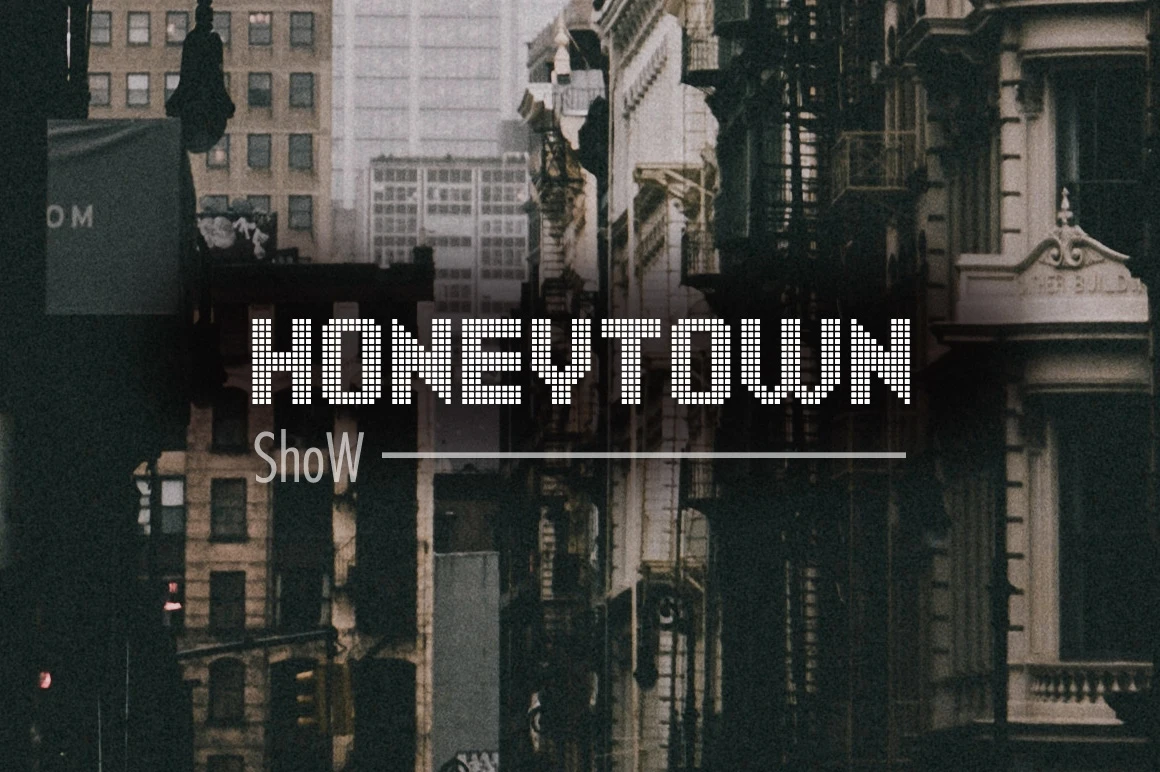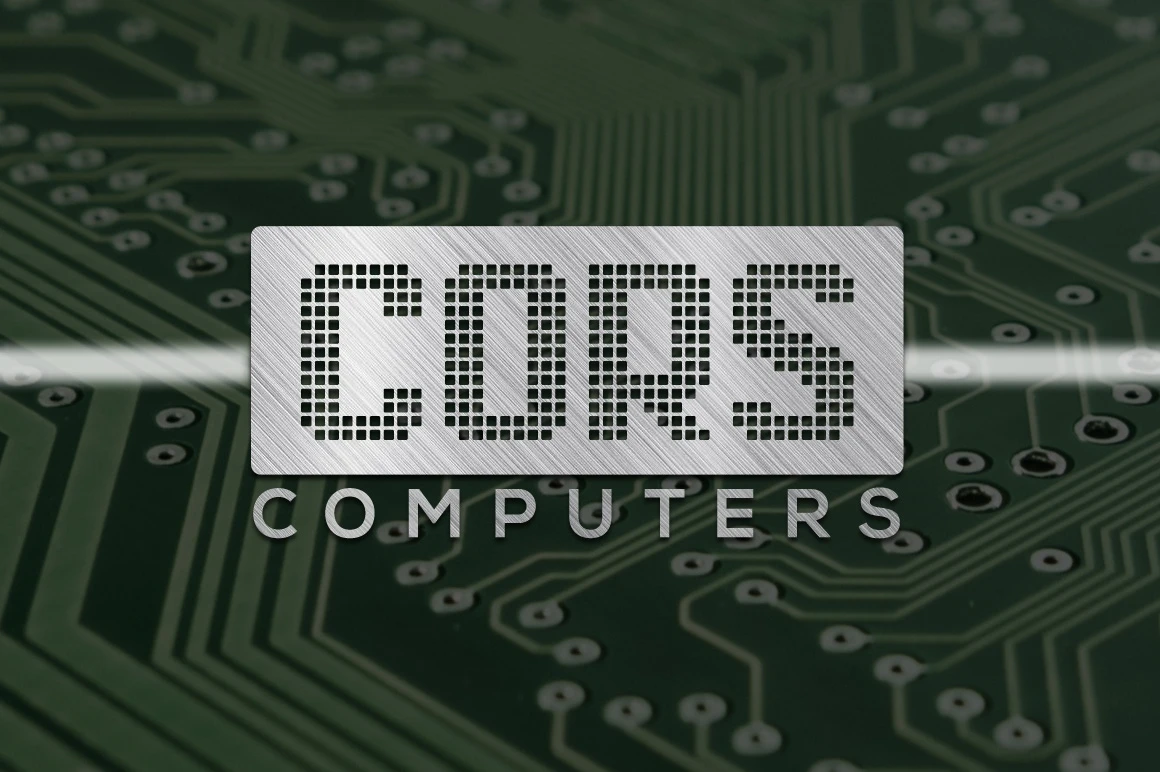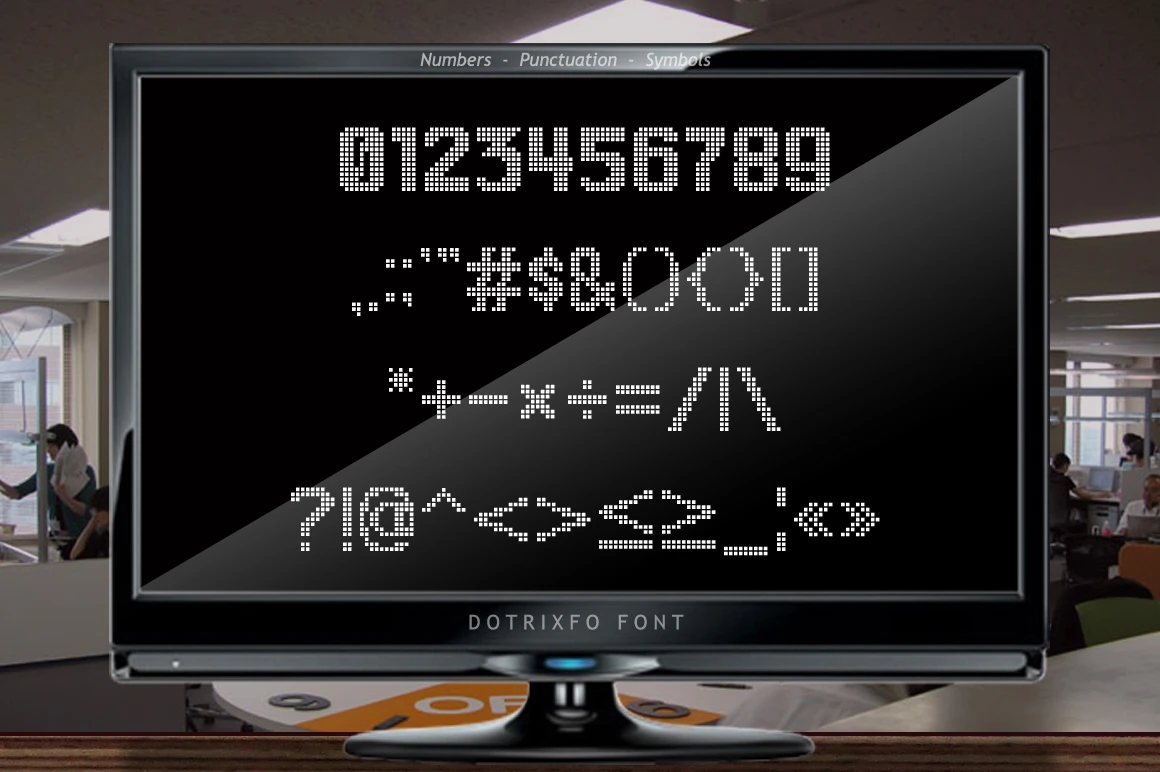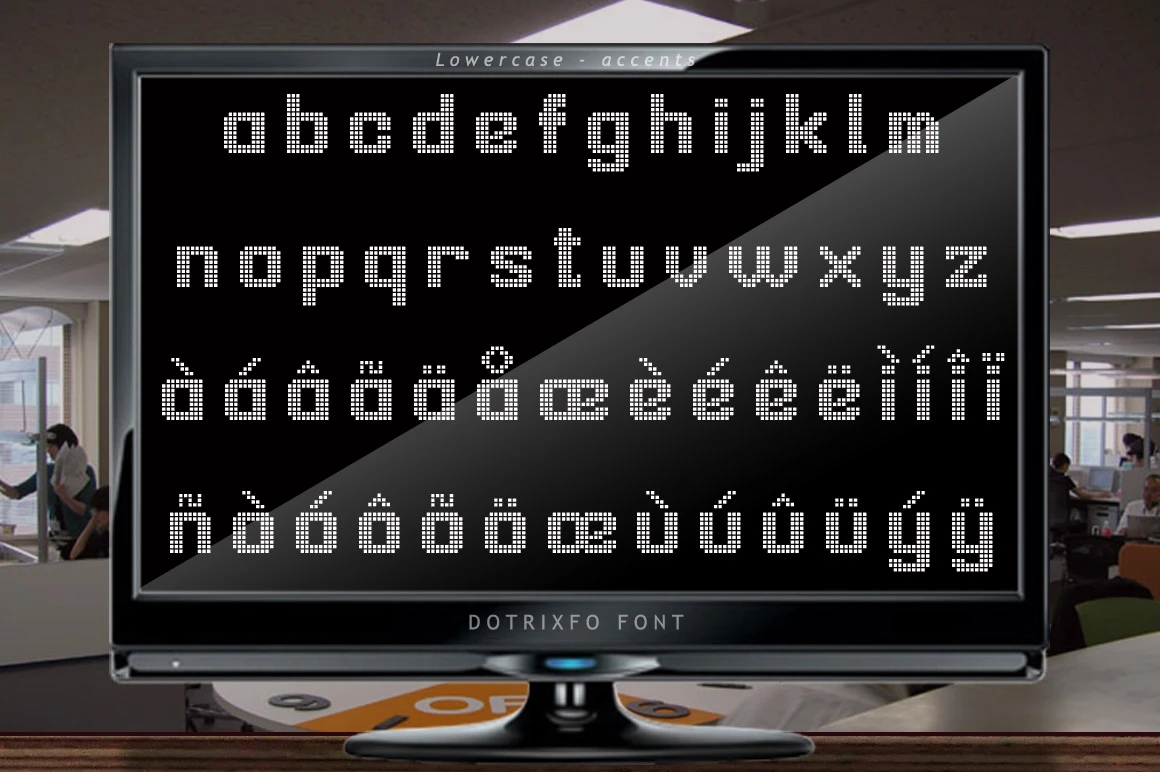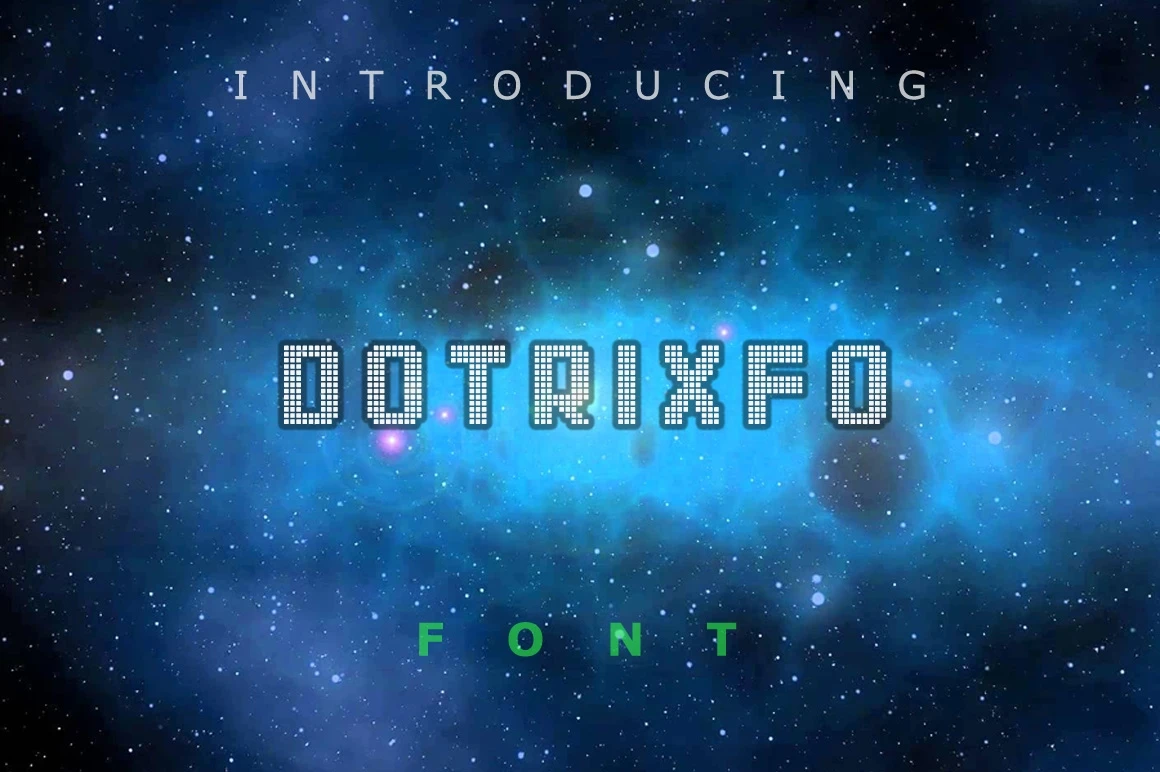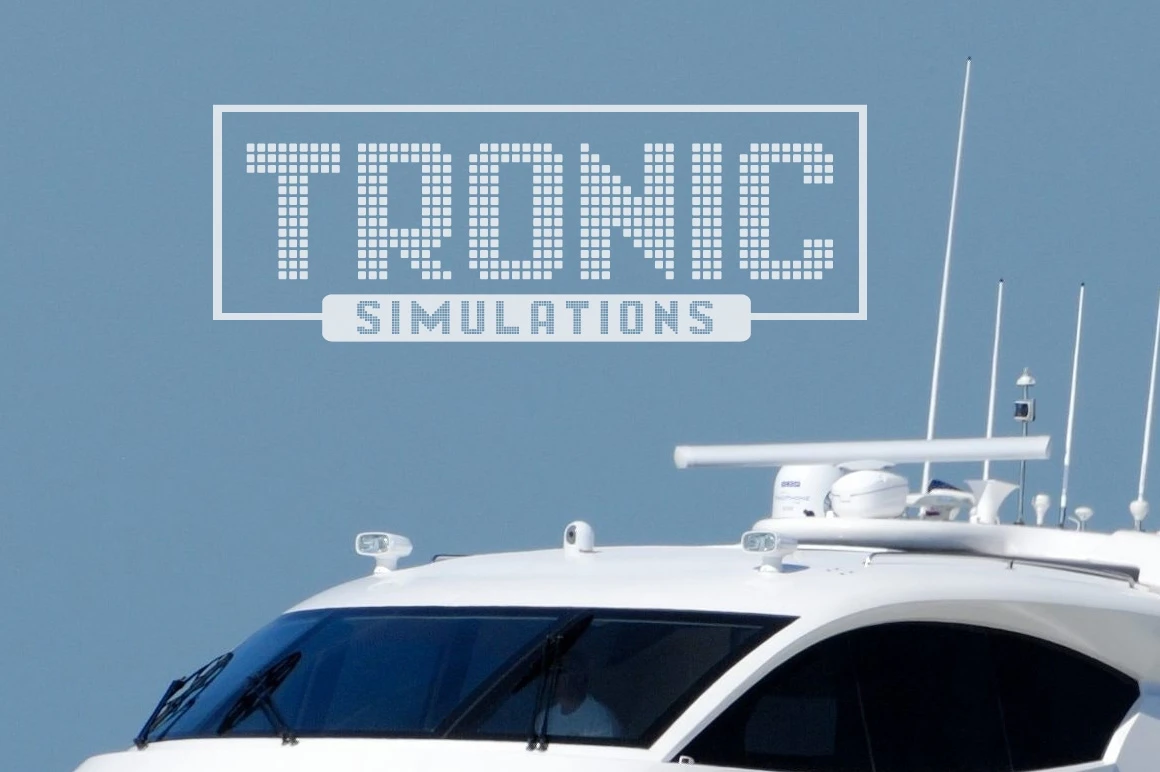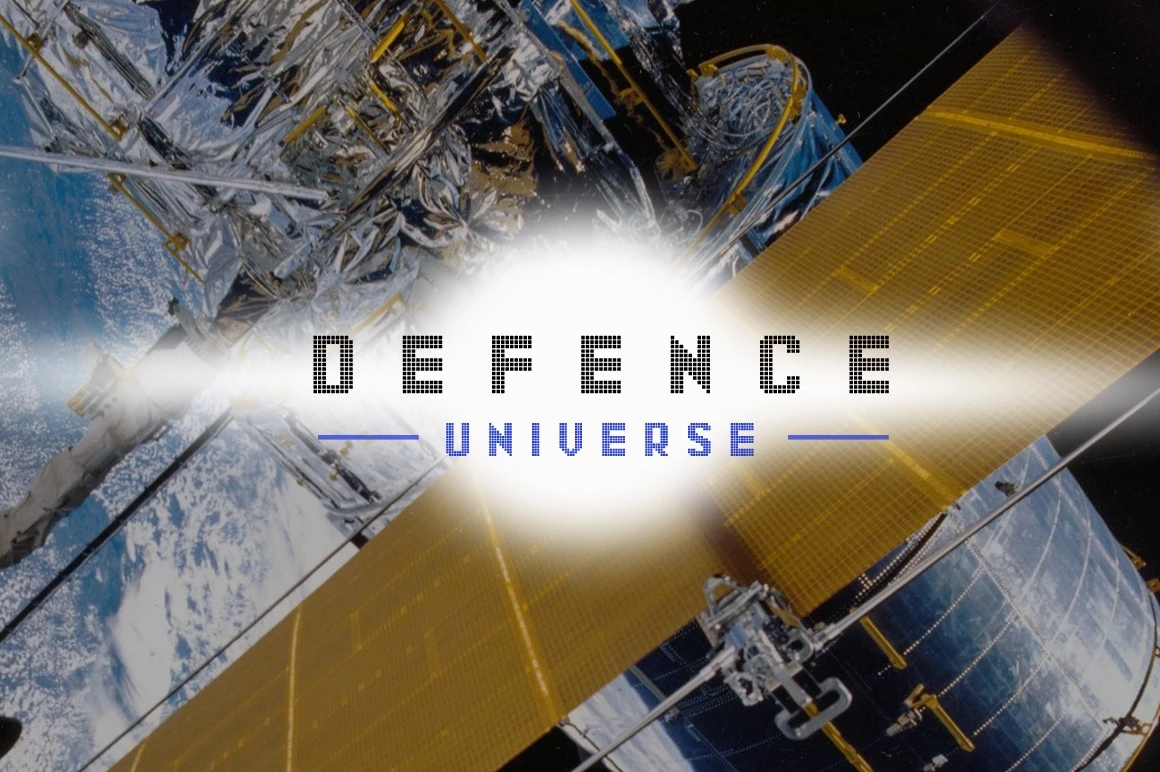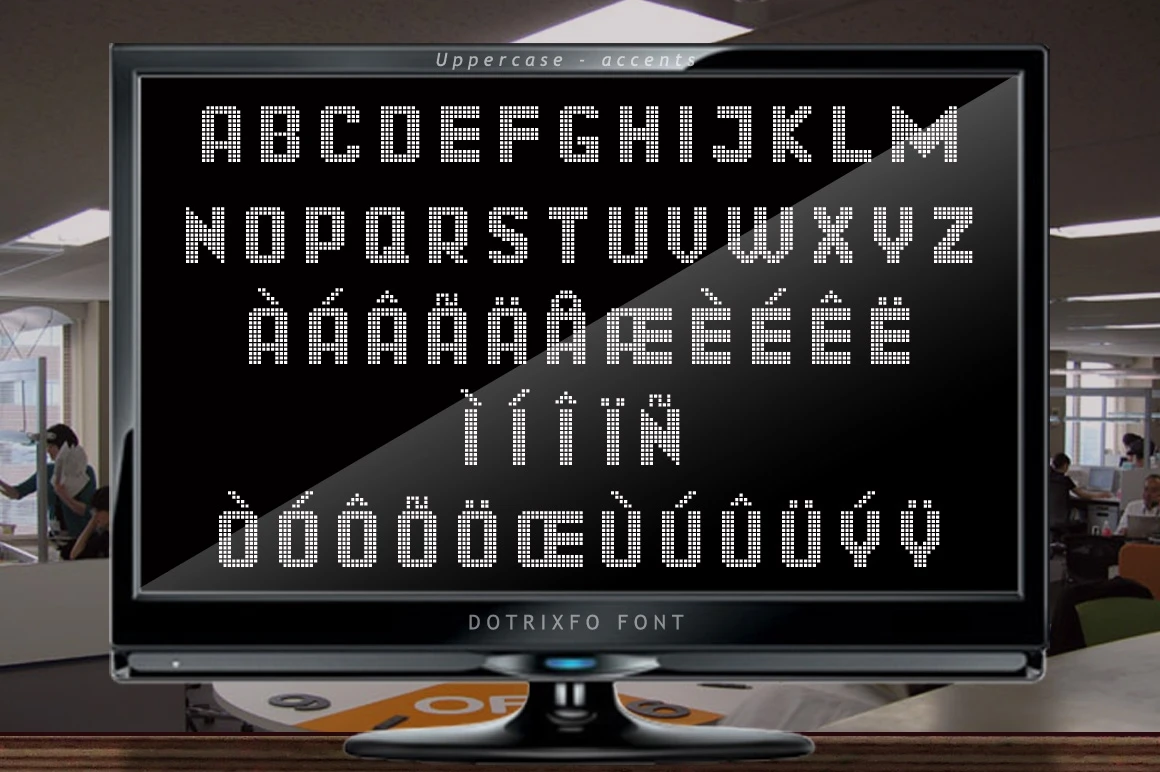
Dotrixfo is a modern display font with digital technology look. It is designed With dots to represent your digital technology design.
Dotrixfo perfect for modern theme designs, digital logos, titles, branding, product packaging and more.
- Uppercase A-Z
- Lowercase a-z
- Numbers 0-9
- Accents
- Punctuation
- Multilingual support